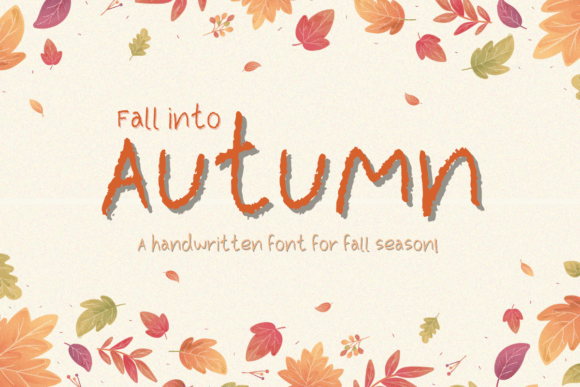
The Cozy Charm of Autumn Font: A Designer’s New Best Friend
I still remember the design project that led me to discover the Autumn font. I was working on a branding project for a local craft fair, and I needed a font that would capture the essence of the season – warm, cozy, and inviting. After hours of scrolling through font libraries, I stumbled upon Autumn, a handwritten font with a youthful spirit that immediately stole my heart. Its boho feel and effortless charm were exactly what I needed to bring my design to life.
So, what makes Autumn font so special? Here are a few things I adore:
- ✨ Unique, hand-drawn feel that adds a personal touch to any design
- ✅ Highly versatile – perfect for posters, magazine covers, logos, wall art, and more
- 💫 Beautifully crafted letters with a youthful, energetic vibe
Of course, no font is perfect, and Autumn has a few minor quirks:
- 🤔 Some letters may appear a bit inconsistent in size or spacing, which can be noticeable at smaller font sizes
- ⚠️ Limited language support – best suited for English or similar alphabets
- Experiment with OpenType features, such as ligatures and stylistic alternates, to add more personality to your text
The Story Behind Autumn Font
Autumn font was designed by a talented type designer who wanted to capture the carefree spirit of the season. Inspired by the vibrant colors and cozy textures of fall, the designer created a font that’s both youthful and sophisticated. The result is a unique, hand-drawn font that’s perfect for adding a personal touch to your designs.
| Is Autumn font suitable for body text? | While Autumn font is beautiful, it’s best suited for headlines, titles, or short paragraphs. Its unique, hand-drawn feel may not be ideal for long blocks of body text. |